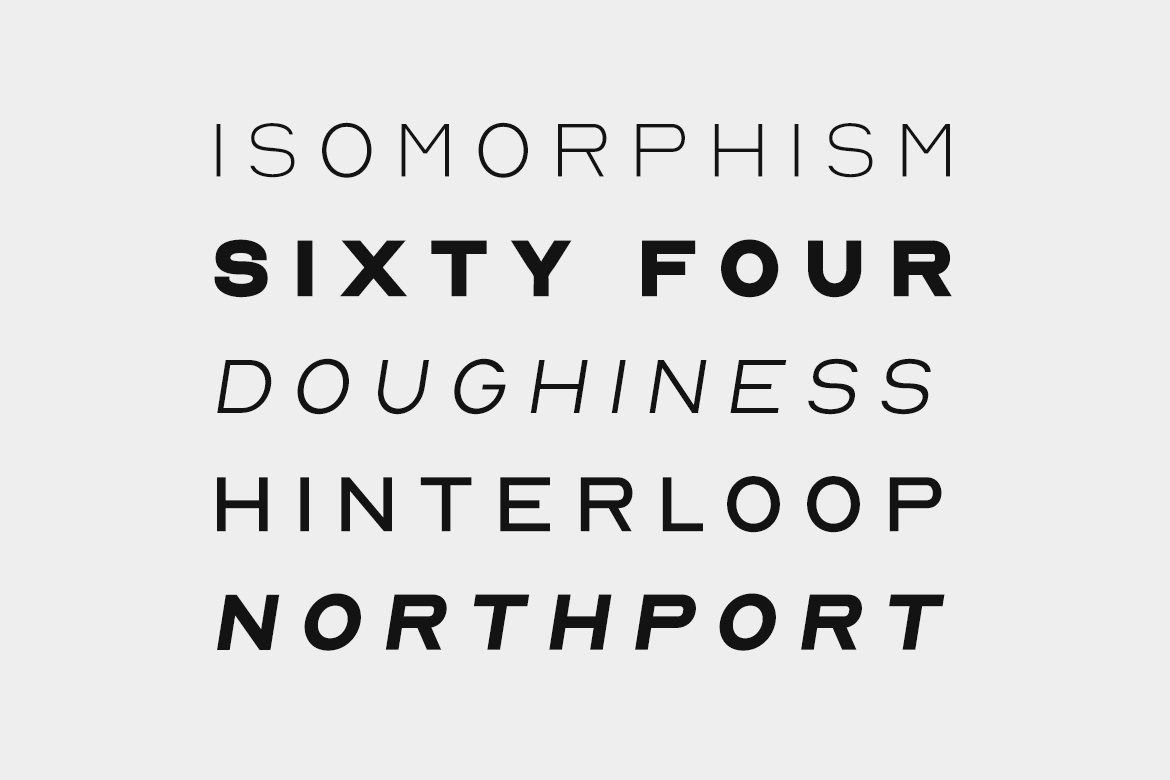
Major Update v2.5 (Released on 23 June 2024): Since version 2.0, the NORD family comes with extended language support including Western European & Central European sets for all weights. This latest update v2.5 includes tweaked glyphs, new glyph additions, and improved kerning overall.
About the Font Family:
NORD is a minimal, modern sans serif and all-caps font family, perfect for logotypes, branding, headlines, corporate identities, and marketing materials for web and print projects. Thanks to balanced letter spacing, NORD offers versatile options for minimalist designs.
The font family consists of 14 fonts: seven upright weights (Thin, Light, Book, Regular, Medium, Bold, Black) plus italic counterparts for each. Extended language support includes Western European, Central European, and South Eastern European sets with a total of 276 handcrafted glyphs.
Features:
| Feature | Description |
|---|---|
| 14 Fonts | Includes seven upright weights and italic versions. |
| 276 Glyphs | Carefully designed with powerful OpenType features. |
| Extensive Language Support | Supports a wide variety of Western, Central, and South Eastern European languages. |
| Minimal & Modern Design | Ideal for professional branding and sleek visuals. |
| Balanced Letter Spacing | Ensures readability and elegant typography. |
| Designed By | Meticulously crafted by Webhance Studio. |